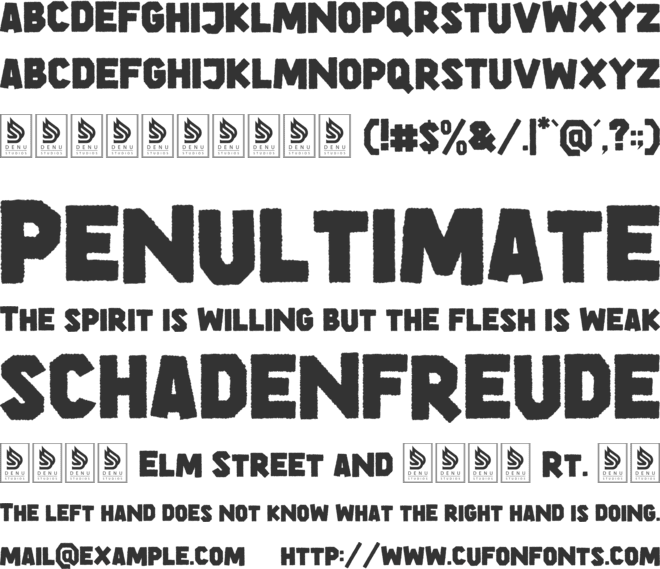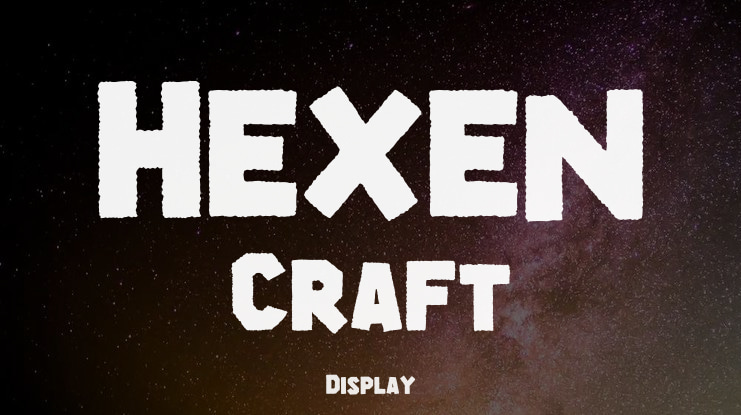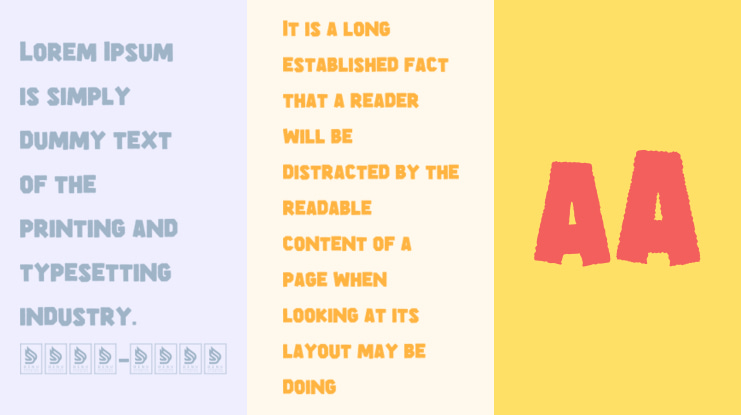
Hexen Craft | Horror Font product packaging, mugs, quotes, posters, shopping bags, t-shirts, book covers, name card, invitation cards, greeting cards, label, photography, watermark, special events, and all your other lovely projects that need a Horror taste.